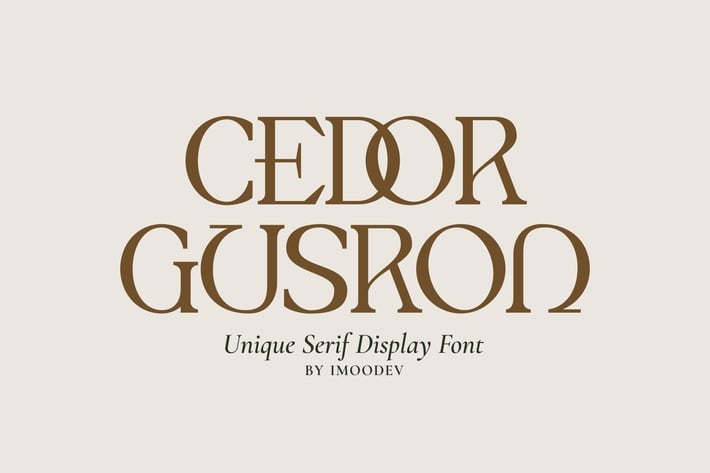
Cedor Gusron - Luxury Classy Font
Cedor Gusron is a luxury classy font with visual elegance, smooth curves, and beautiful ligatures clear, making your work look true and attractive.
A versatile font that works in both large and small sizes. This font is suitable for a wide variety of projects such as invitations, logos, branding, magazine, photography, card, product packaging, mugs, quotes, poster, labels, signatures, and more.
Punctuation, Number, and Symbol
* Multilingual Support ÀÁÂÃÄÅÆÇÈÉÊËÌÍÎÏÐÑÒÓÔÕÖØÙÚÛÜÝ